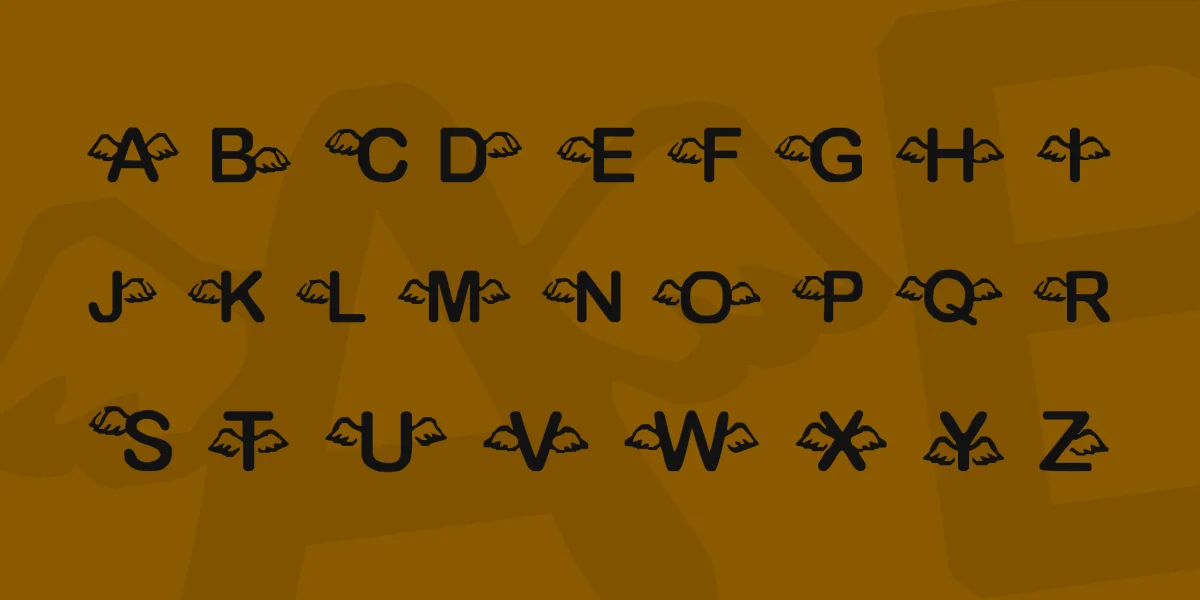
My first font: letters with wings, inspired by I don't know what. The name came from an idea I had a while ago. Consists of Caps only, no punctuation, numbers or fancy stuff. Passable in smaller sizes though...